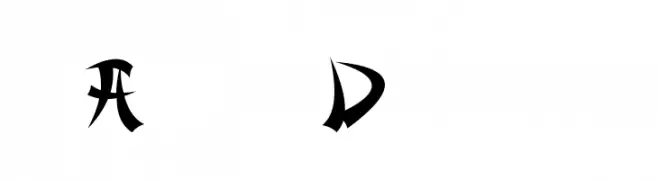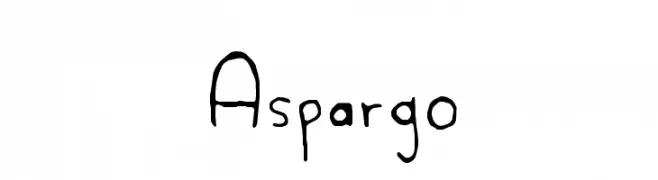
A playful, handwritten font with rounded edges and a casual style.
A bold, geometric font with a futuristic and mechanical design.
A dynamic, cursive script font with elegant italic styling.
A playful, handwritten font with a casual and friendly appearance.
A bold, brush-like font with a vintage, hand-painted style.
A bold, distressed font with a hand-painted, vintage look.
A bold, geometric font with a modern and dynamic style.
A modern, geometric sans-serif font with consistent stroke widths and a sleek design.
A bold, geometric font with a futuristic, digital aesthetic.
A futuristic, geometric font with sharp, angular characters.
A pixelated, digital-style font with a geometric, grid-like structure.
A pixelated, blocky font with a retro digital aesthetic.
A bold, pixelated font with a modern, tech-inspired design.
A segmented, digital-style font inspired by classic LED displays.
A digital display font with segmented, geometric characters.
A bold, angular font with a digital and gothic style.
A playful, handmade-style font with loops and curves, perfect for creative projects.
A bold, geometric font with a digital, futuristic style.
A bold, angular font with a futuristic and edgy design.
A bold, angular font with a futuristic and dynamic design.
A geometric, angular font with a digital and futuristic aesthetic.
A bold, geometric font with a futuristic and digital aesthetic.
A bold, brush-style font with dynamic and expressive characters.
A modern, digital-inspired font with a pixelated texture and slanted characters.